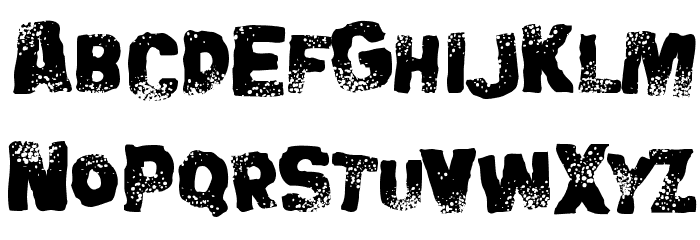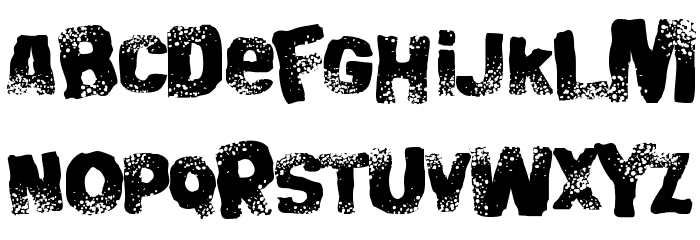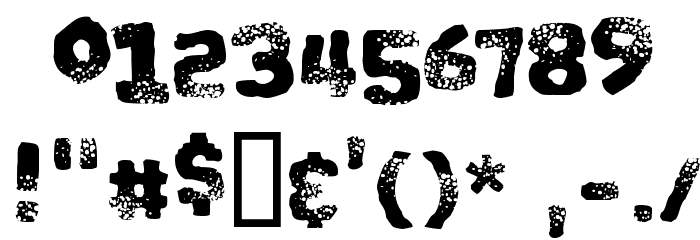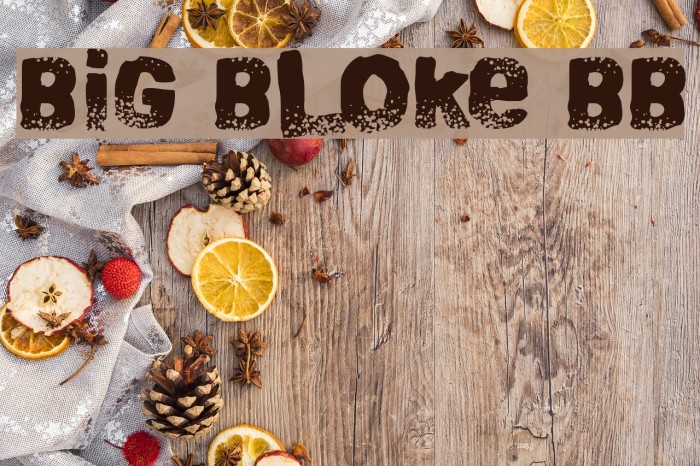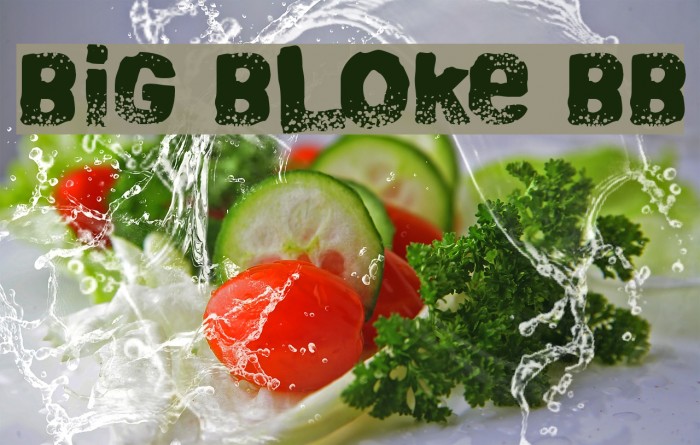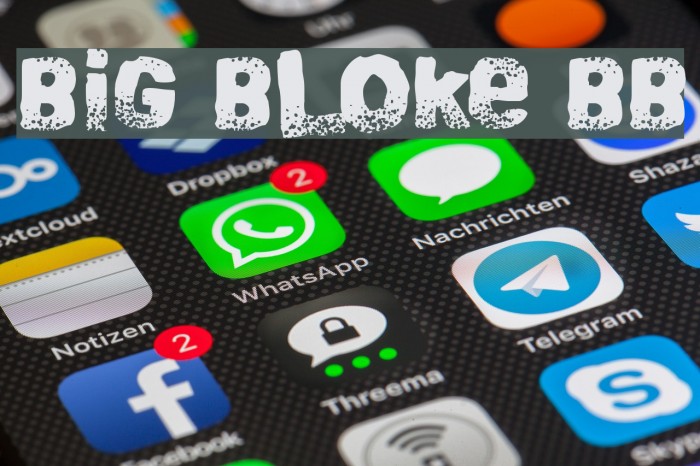
Big Bloke BB Font
This font features a bold and rugged design with a distressed texture that gives it a gritty, urban feel. The characters are thick and heavy, with irregular edges that create a sense of movement and energy. The texture within each letter resembles a speckled or splattered pattern, adding to its raw and edgy aesthetic. This font is highly distinctive and eye-catching, making it ideal for designs that require a strong visual impact. The uppercase and lowercase letters maintain a consistent style, while the numbers and special characters complement the overall look with the same textured effect.
A bold, textured font with a rugged, distressed style.
- Proposed Projects: Ideal for posters, album covers, streetwear branding, and any project needing a bold, urban aesthetic.
- Overall Style: Urban, Edgy, Distressed